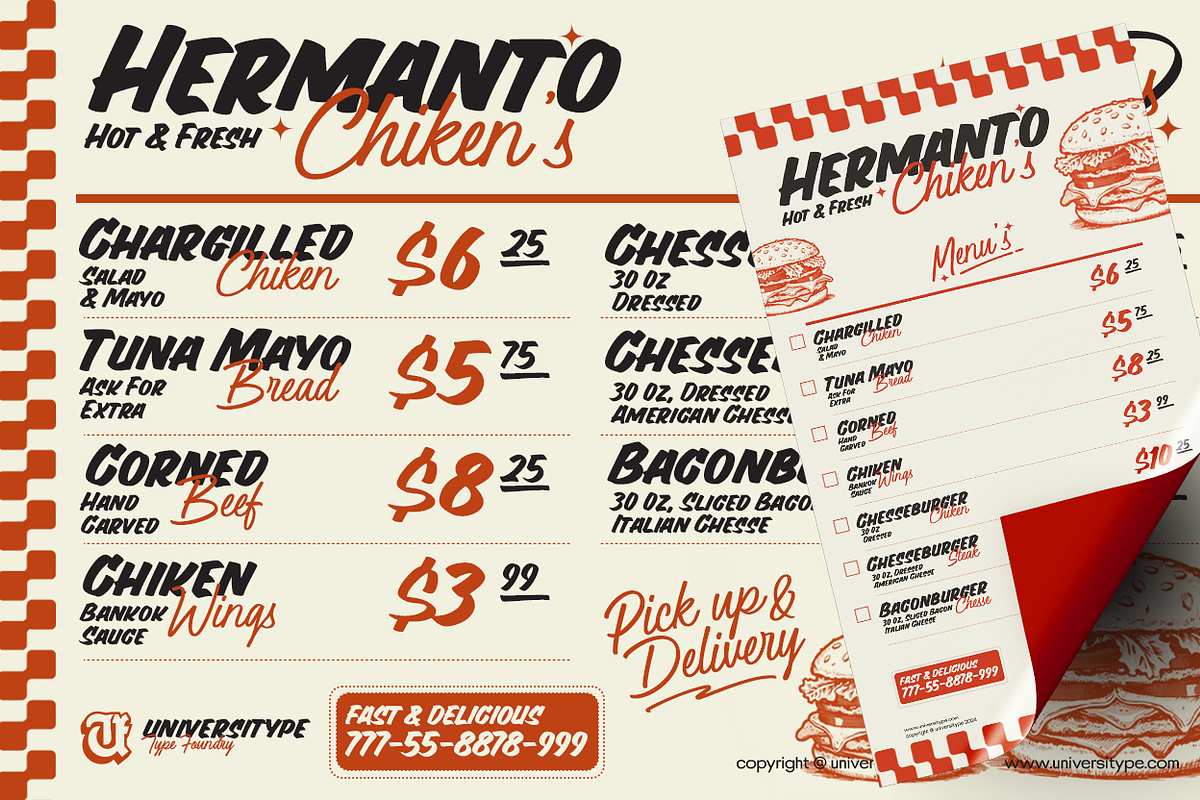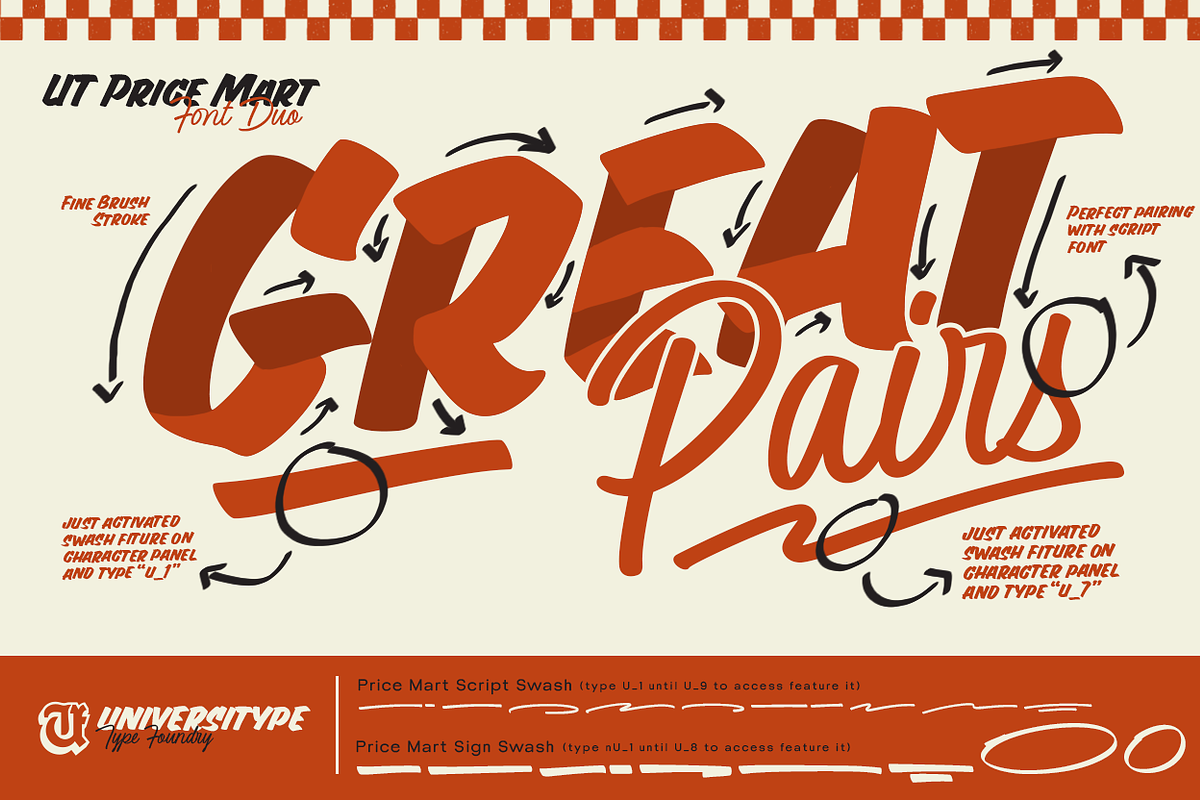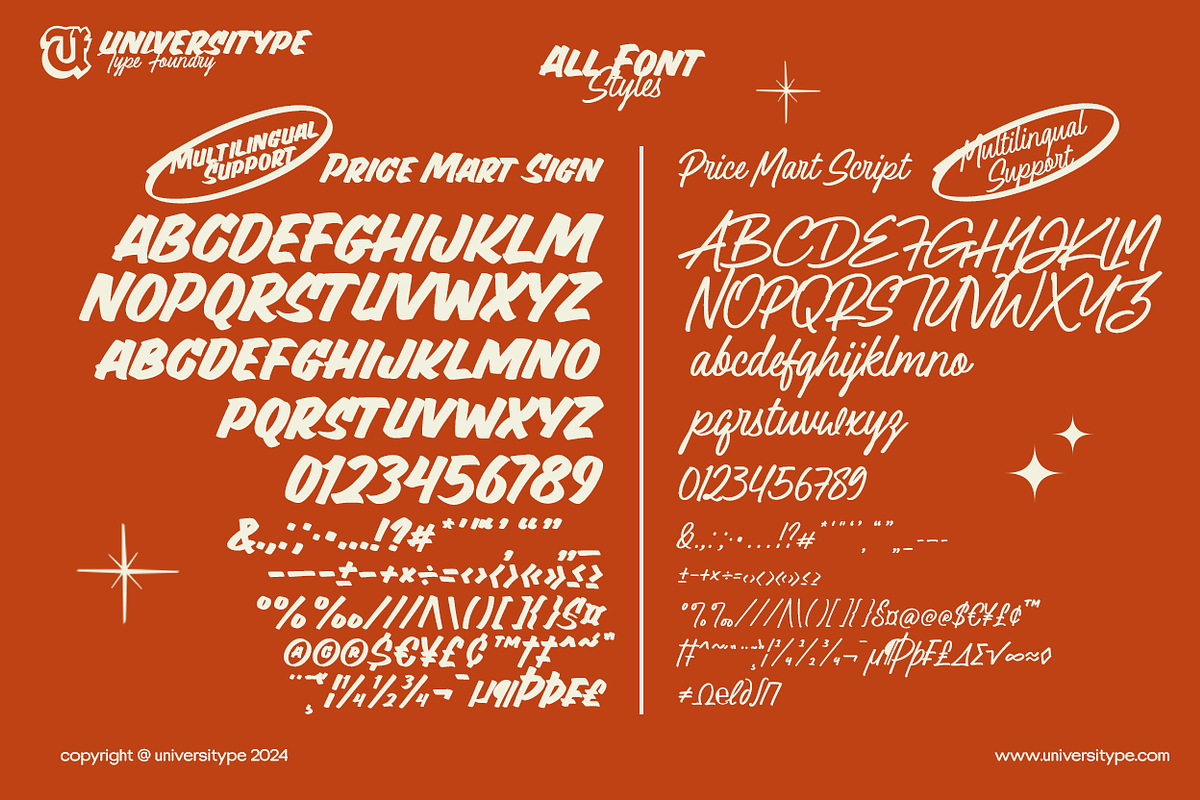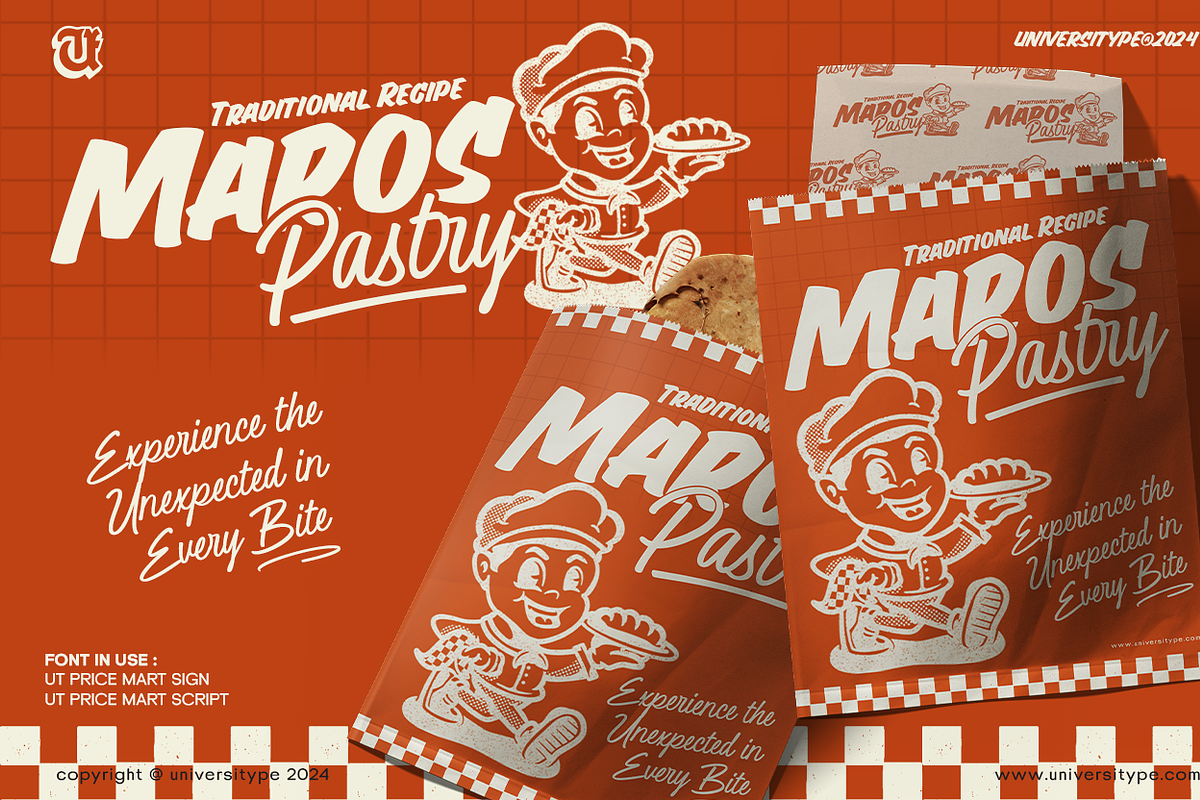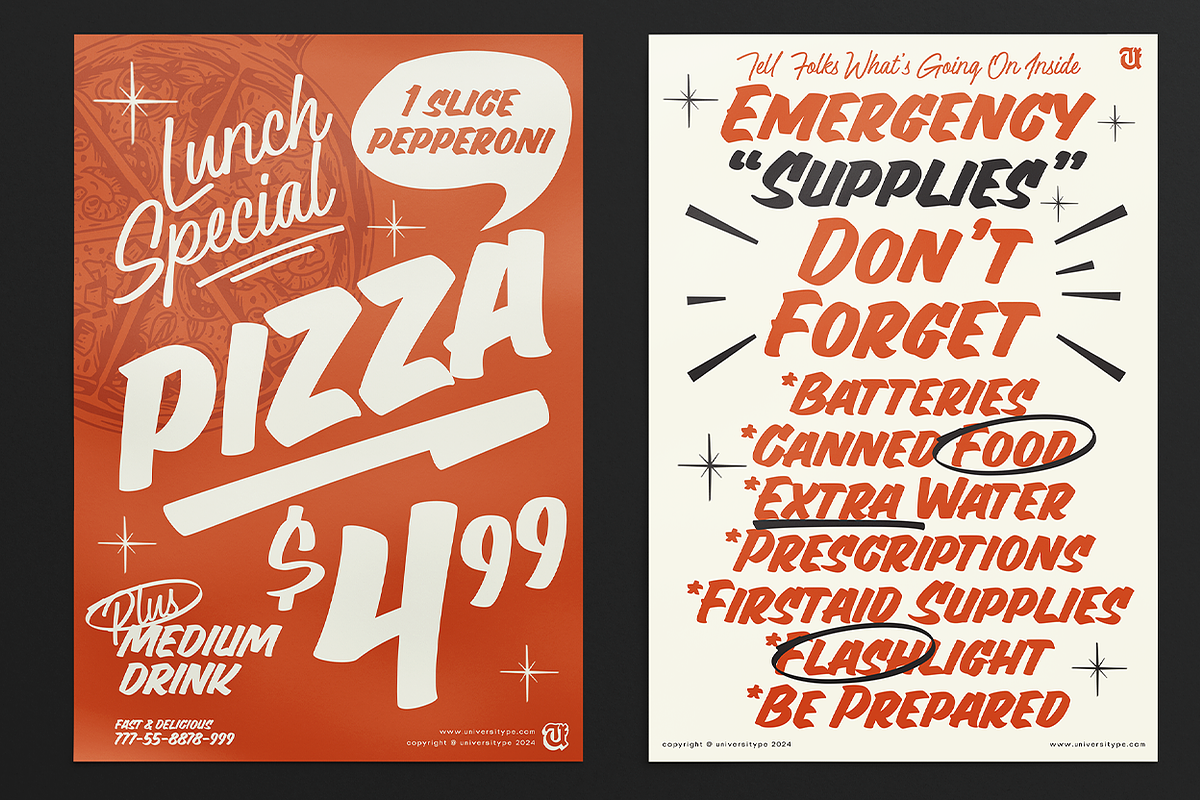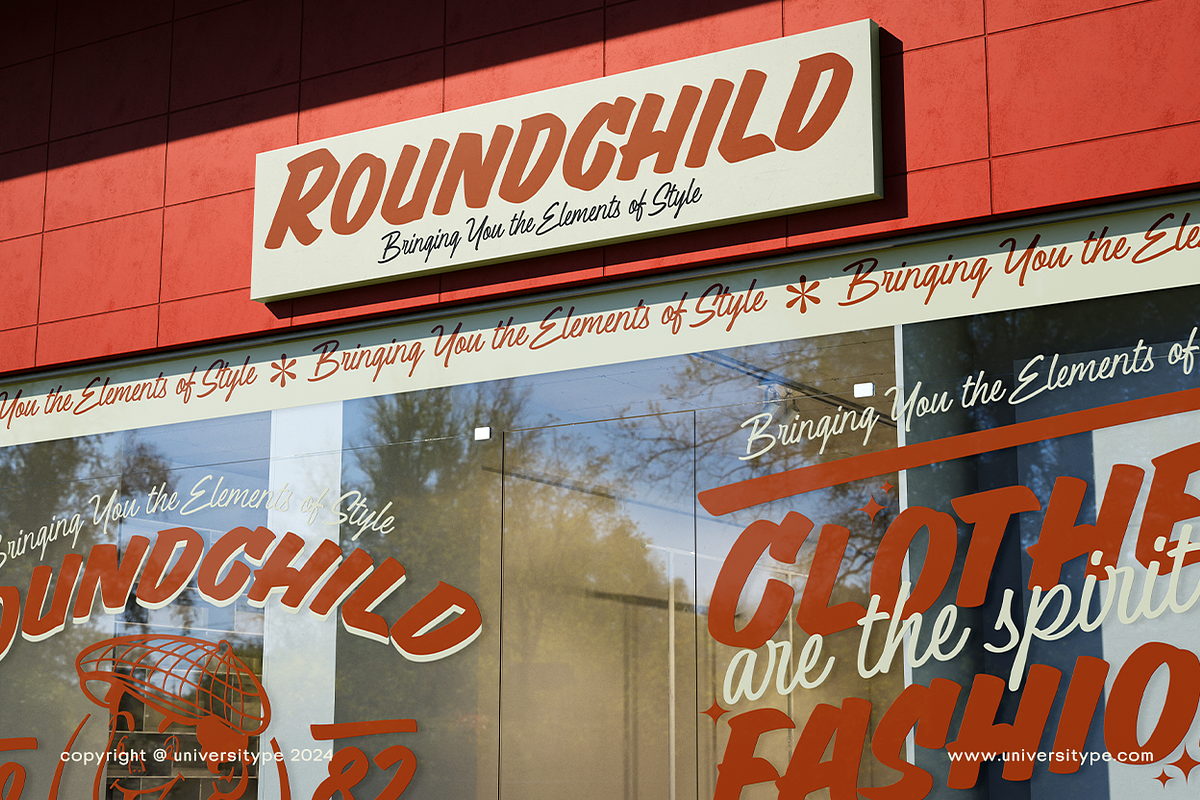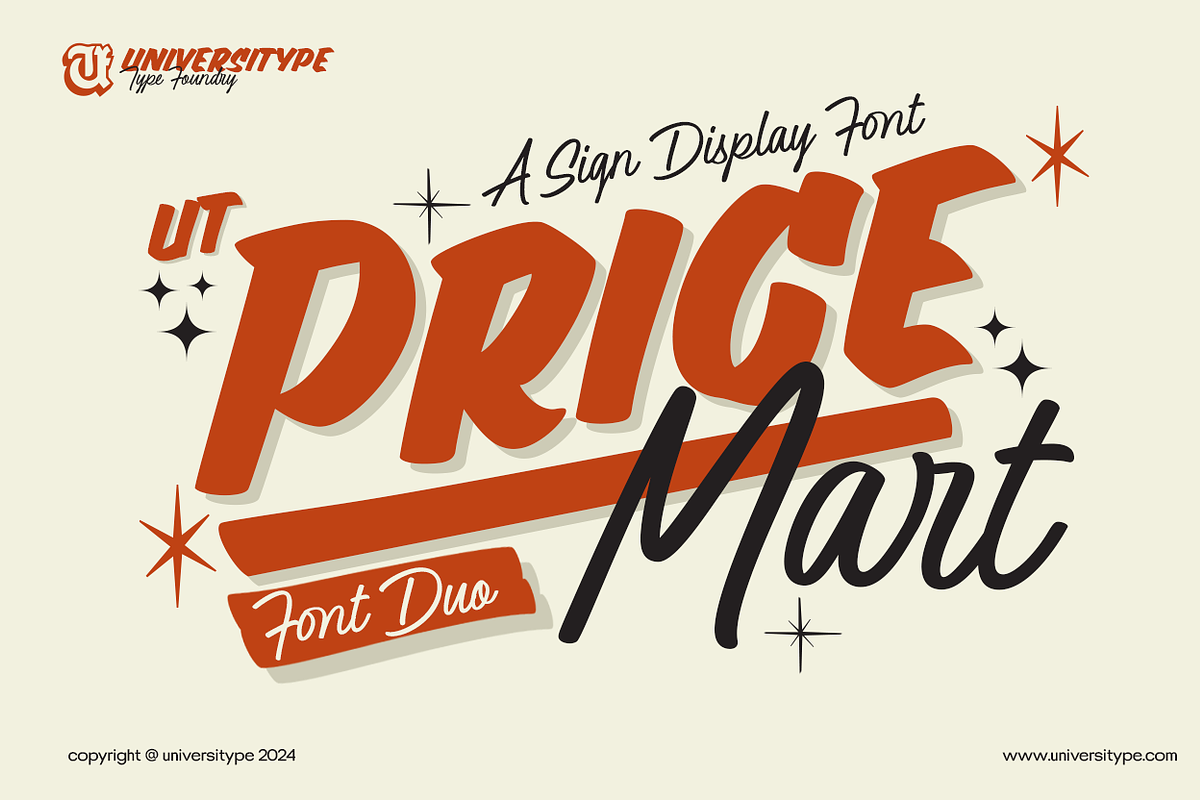
UT Pricemart Font Duo
Introducing UT Pricemart Font Duo - A sign Display Font. Elevate your design projects with a touch of retro sophistication using the UT Pricemart Font Duo. This exceptional font pair combines two distinct styles to deliver a versatile and dynamic aesthetic that’s perfect for a variety of creative endeavors. With a bold, uppercase sans-serif font and a whimsical, flowing script, this duo offers a striking combination that captures attention and infuses your designs with a unique charm.
Key Features of UT Pricemart Font Duo:
– Dynamic Combination: Experience the magic of two complementary styles—an assertive, bold sans-serif font that provides a strong, modern presence, paired with a delicate, flowing script that adds a playful and elegant touch. Together, these fonts create an engaging and visually captivating blend that enhances any design.
– Versatile Use: This font duo is incredibly adaptable, making it ideal for a wide range of design applications. Whether you’re working on signage, branding elements, promotional materials, or any other creative project, the UT Pricemart Font Duo provides the flexibility you need to achieve stunning results.
– High Quality: Crafted with meticulous attention to detail, the UT Pricemart Font Duo ensures premium quality in every application. The careful design and fine-tuning of each character guarantee that your projects will have a polished, professional appearance, no matter the medium.
– Endless Creative Possibilities: The UT Pricemart Font Duo opens the door to a world of creative potential. Use the bold sans-serif for impactful headlines and prominent text, while the flowing script can add a touch of elegance and personality to your designs. The synergy between these two fonts provides endless opportunities to experiment and explore new design ideas.